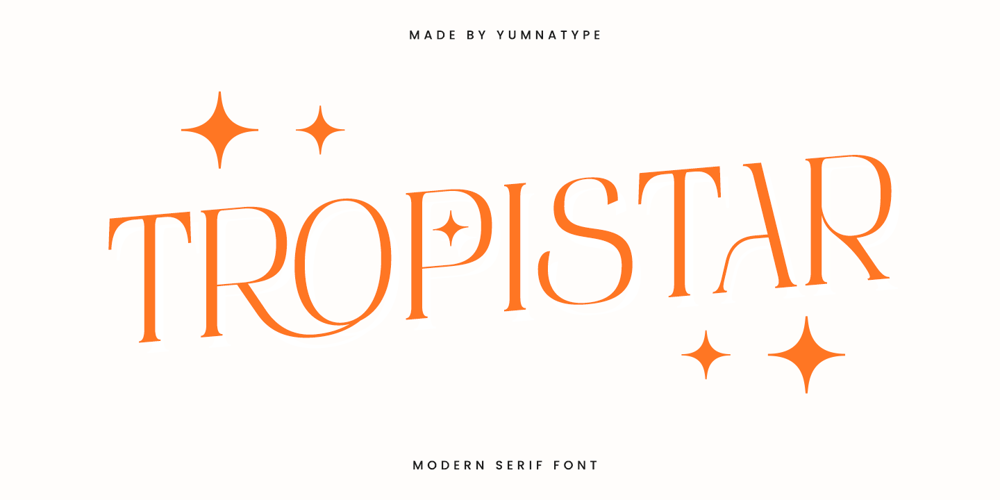
Tropistar Font Family was designed by Donis Miftahudin and published by Yumna Type. Tropistar contains 1 styles and family package options. Tropistar is a sophisticated serif font designed in uppercases, exuding a modern and elegant style. With its lightweight, this font brings a sense of refinement and grace. Its sleek and delicate character ensures that your message is conveyed with both clarity and elegance, making it an ideal choice for designs that require a touch of sophistication and modernity. In addition, enjoy the features here.Features: Ligatures Stylistic Sets Multilingual Supports PUA Encoded Numerals and Punctuations Uppercase Tropistar fits in headlines, logos, posters, flyers, branding materials, print media, editorial layouts, and many more designs. Find out more ways to use this font by taking a look at the font preview.Thanks for purchasing our fonts. Hopefully, you have a great time using our font. Feel free to contact us anytime for further information or when you have trouble with the font. Thanks a lot and happy designing.